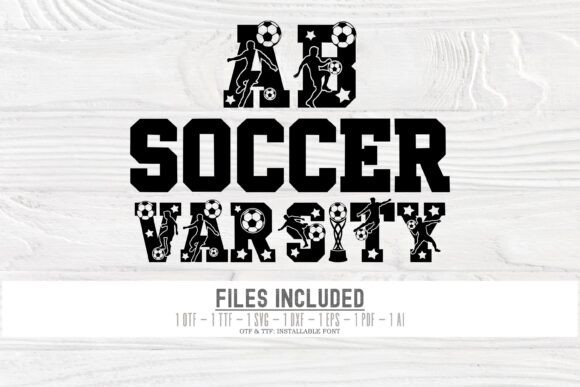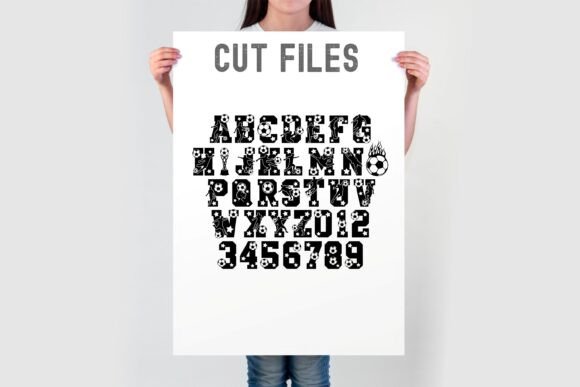
Ab Soccer Varsity Font
The Soccer Installable Font is a must-have for football fans and designers alike. With bold uppercase and lowercase characters, numbers, and sports silhouettes, this font captures the passion of the game. Includes OTF and TTF formats for easy installation and cut files (SVG, DXF, EPS, PDF) for Cricut and Silhouette users. Perfect for sportswear, invitations, and team branding!